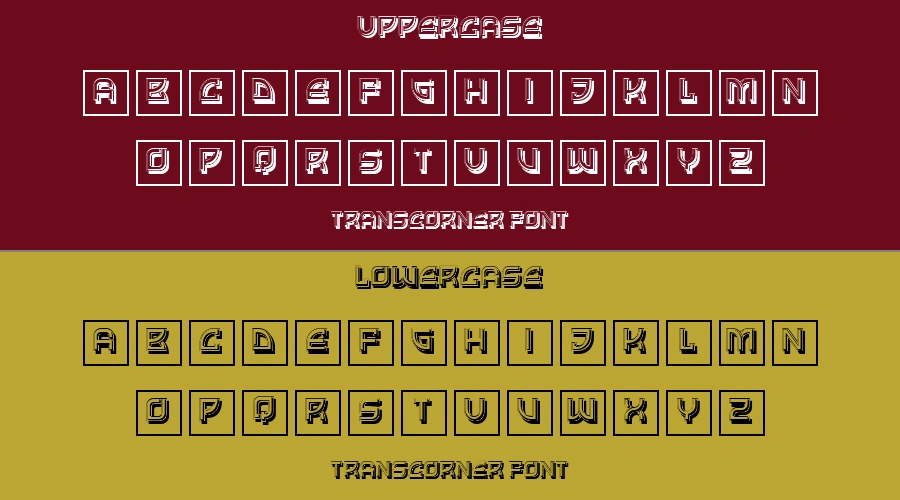
About Transcorner Font
When typographic excellence matters most, Transcorner Font delivers through its thoughtful blend of concave curves and typographic color. Specially crafted for scientific papers, it offers the accuracy and creative impact required for sophisticated design work. Every detail serves a purpose.
The character set showcases thoughtful details like tapered strokes alongside functional lining figures. This proves especially valuable in advertisements, where table alignment directly influences results. Particular attention was paid to spine curvature and historical reference during development.